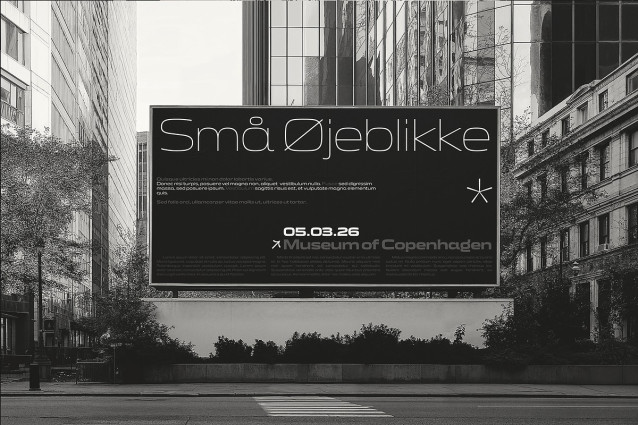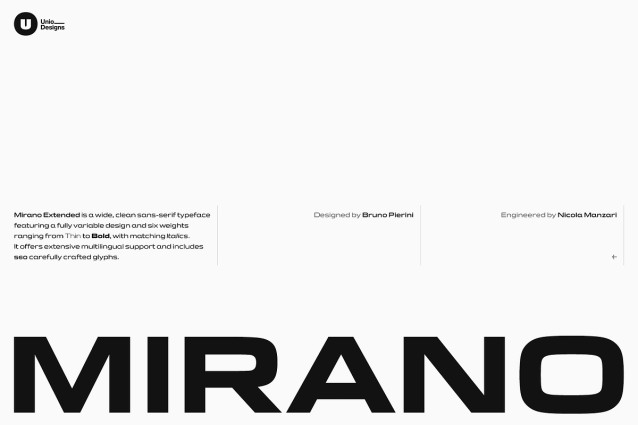
Mirano Font
Mirano Font is a variable typeface that channels the charm of automotive history into a crisp, contemporary voice. It starts from a very specific reference: the iconic lettering associated with the most famous German “star” brand and one of its most recognizable, trend‑defining off‑road vehicles, then pushes that visual code into a wider, more modern system designed for today’s branding and interface demands.
Built on a deep study of Aldo Novarese’s Eurostile, Mirano extends the concept further—reimagining its geometric, engineered logic with a more expansive stance, sharper rhythm, and a cleaner contemporary finish. The result is a family that feels mechanical yet premium: confident in headlines, stable in any design system.
Mirano plays across a variable weight axis, ranging from Thin to Bold, and is also released as 6 static weights for maximum compatibility. Each weight is paired with a matching italic, engineered to keep the same forward momentum and compact efficiency of the roman while adding speed and attitude.
Packed with professional OpenType features—ligatures, stylistic sets, case‑sensitive glyphs, and positional numerals—Mirano gives designers full control to tune form, rhythm, and fuel: from “0 to 100” acceleration in visual impact, when needed.